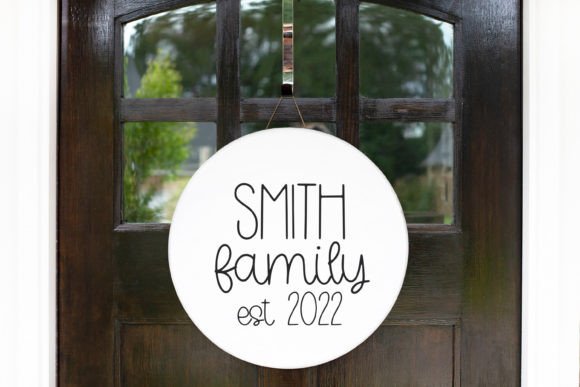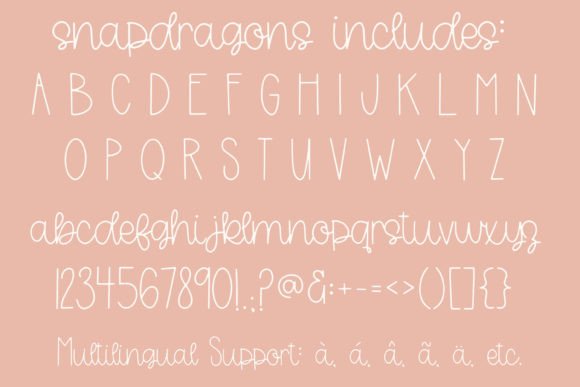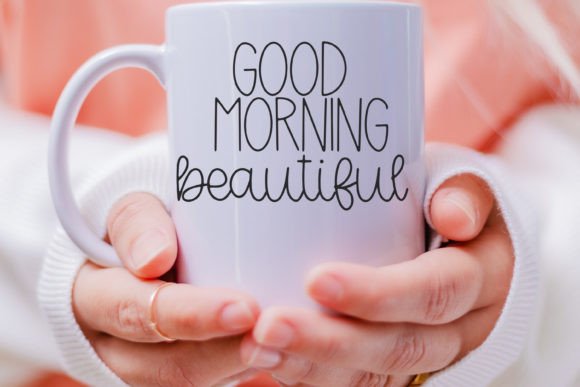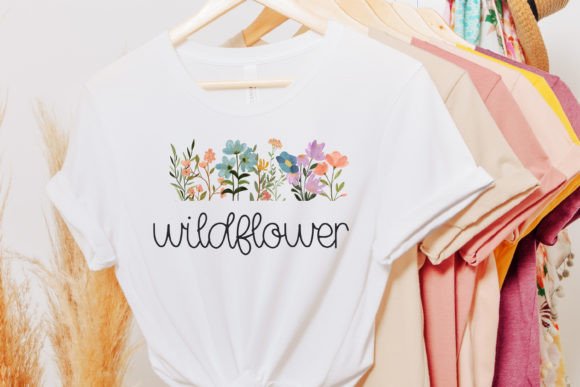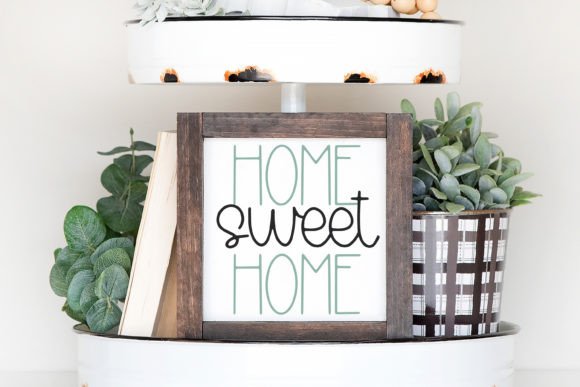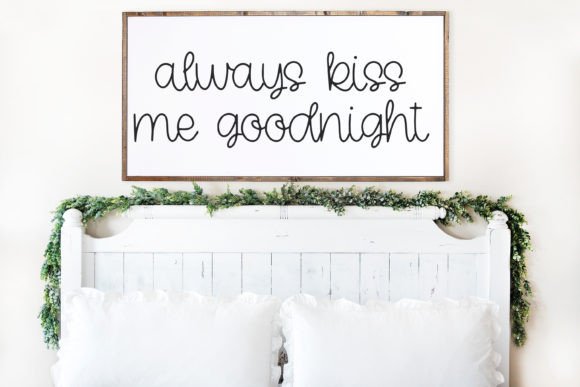
Introduction to Snapdragons Font
Have you ever been working on a creative project, pouring your heart and soul into it, only to realize that the perfect font is missing? That’s exactly what happened to me when I was designing a set of custom greeting cards for my sister’s birthday. I wanted something that would capture the playful and whimsical spirit of the occasion, but nothing seemed quite right. That’s when I stumbled upon the Snapdragons Font, and it was love at first sight!
As a designer, I can attest that finding the right font can make all the difference in bringing a project to life. The Snapdragons Font is a game-changer, offering a high-quality, handwritten style that’s perfect for adding a personal touch to your designs. With its elegant curves and smooth strokes, this font is sure to elevate your creative projects and leave a lasting impression on your audience.
Key Features of Snapdragons Font
- Includes multiple font styles and weights, ideal for various design applications.
- Features a unique and elegant design, perfect for adding a touch of sophistication to your creative project.
- Designed to be highly scalable, with a minimum size of 12pt and a maximum size of 72pt, ensuring crisp and clear text at various resolutions.
- Compatible with high-resolution displays, making it suitable for use in professional and personal projects.
- Can be used in a variety of creative projects, including graphic design, web design, and digital art, thanks to its versatility and adaptability.
Honest Review: Snapdragons Font
As a designer, I’m always on the lookout for high-quality design resources to elevate my creative projects. Recently, I stumbled upon the Snapdragons Font, and I’m excited to share my honest review.
What works well: ✨ The Snapdragons Font offers a unique and playful style that’s perfect for adding a touch of whimsy to your designs. The font is well-designed, with a clear and consistent typography that makes it easy to read. Plus, it’s a free download, which is always a bonus!
What doesn’t: ⚠️ While the Snapdragons Font is a great addition to any design project, it may not be the best choice for formal or professional designs. The font’s playful style may come across as too casual or immature in certain contexts.
Overall impression: I’m impressed with the Snapdragons Font’s high quality and versatility. It’s a great resource for designers looking to add some personality to their creative projects. With its transparent background and easy-to-use design, it’s a must-have for any design enthusiast.
- Unique and playful style
- Well-designed typography
- High quality
Tips for Getting the Most Out of Snapdragons Font
Use the Snapdragons Font on a transparent background to create a beautiful, high-quality design. Experiment with different font sizes and styles to add visual interest to your creative project.
The Snapdragons Font is perfect for creative projects such as invitations, flyers, and brochures. Its unique design and high-quality texture make it a great choice for designers looking to add a touch of elegance to their work.
Is Snapdragons Font a high-quality design resource?
Yes, Snapdragons Font is a high-quality design resource, carefully crafted to provide a unique and stylish look for your creative projects. With its clean lines, elegant curves, and precise typography, Snapdragons Font is perfect for a wide range of design applications, from logos and branding to digital products and print materials.